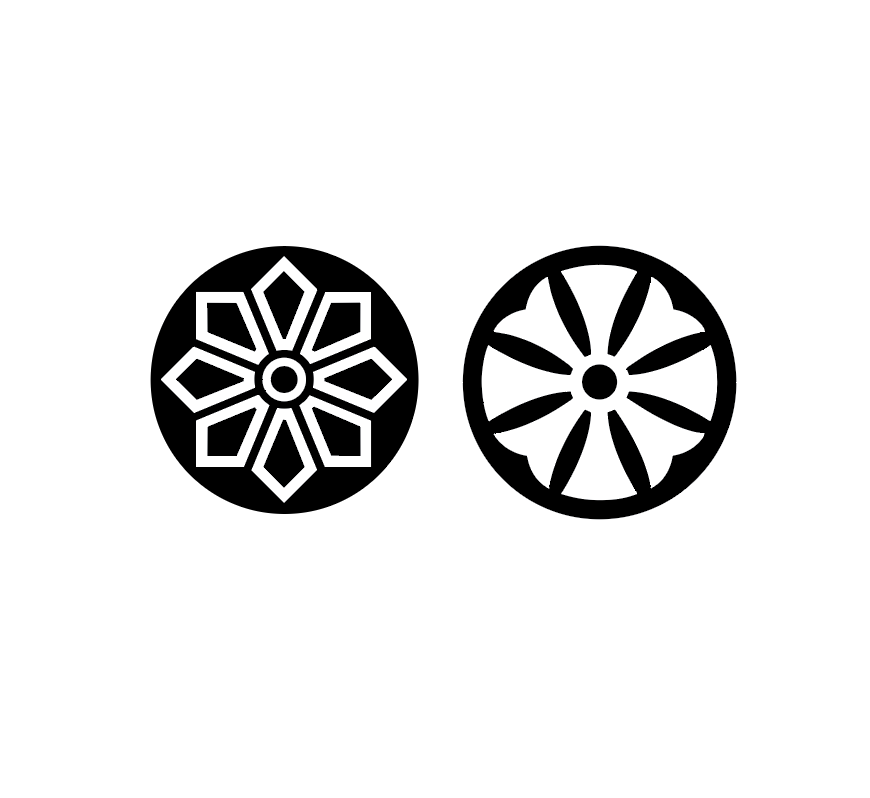
Wagon Wheel & Mary's Flower Dots
Some of Fun Dot patterns are traced from historic specimen books, while others are my own designs. The very first versions were simple enough to cut on my pantograph with no trimming, making them some of the earliest ornaments I ever produced. Now, with laser cutting, I’m able to create increasingly intricate variations.
• Lace – inspired by the delicate pattern of a doily that once caught my eye
• Unicorn Footprint – Scott’s personal favorite, named by Jo Gonda; the pantograph pattern was made with cut-off dowel rods and required no trimming
• Hamilton Star – the very first ornament I ever cut on a pantograph
• Dogwood – one of the best-selling designs I’ve made, still a studio favorite today
• Lace dot – inspired by the pattern of a doily that once caught my eye
• and more!